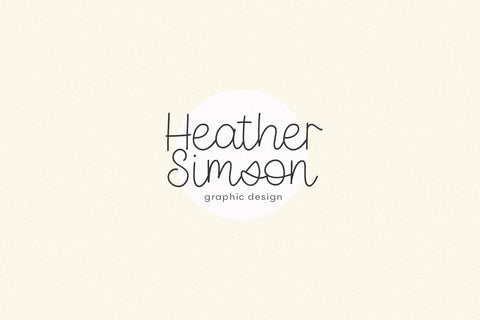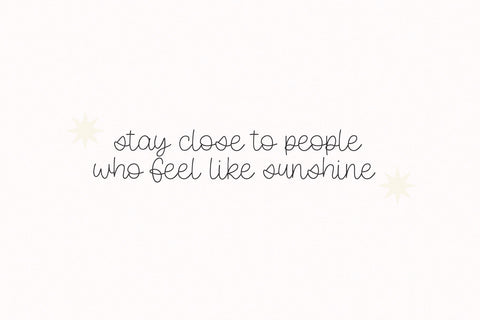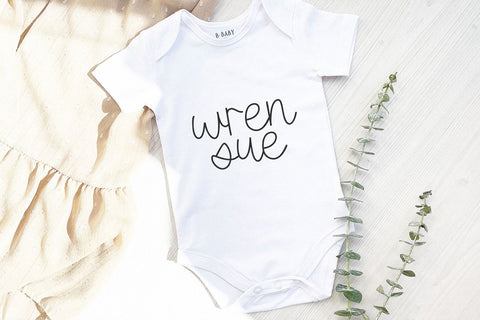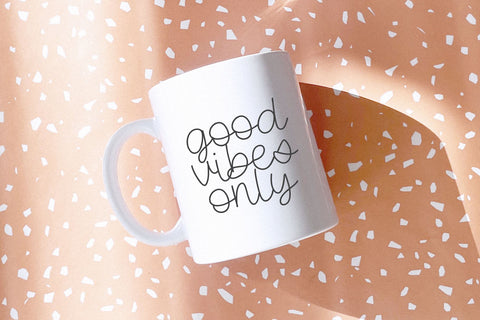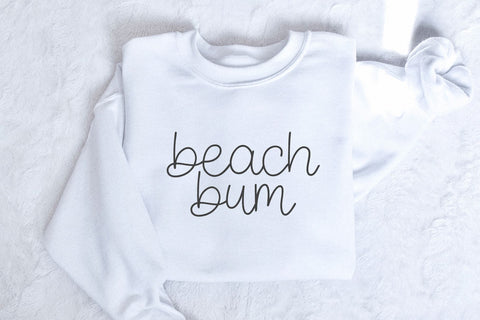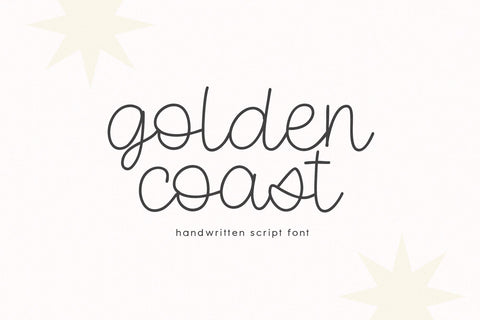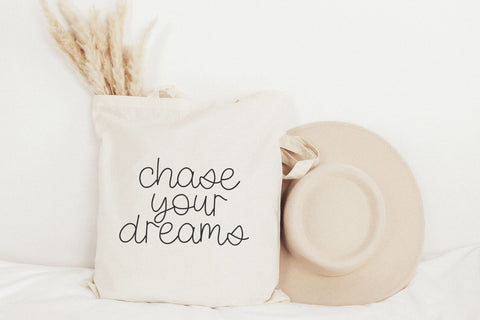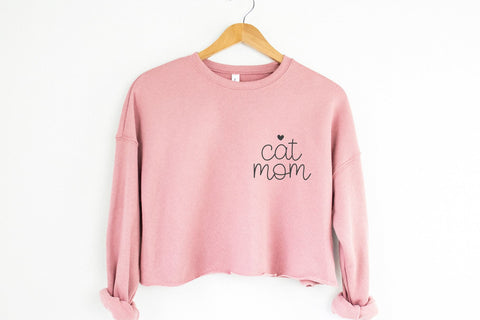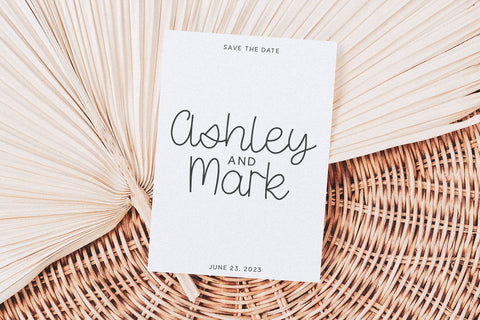
Golden Coast - Handwritten Script Font
Golden Coast is a handwritten script font.
This font is perfect for your craft projects, logos, branding, signs, farmhouse decor, invitations, shirts and more!